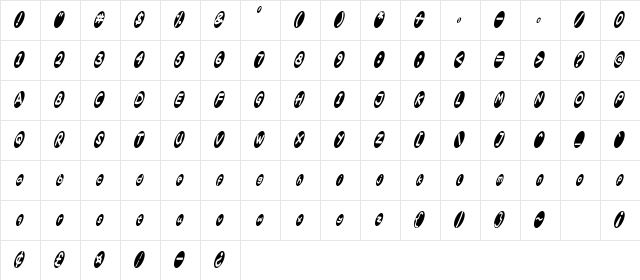
ovalium starmind Regular
Design Context for ovalium starmind Typeface
ovalium starmind is a composed and adaptable typeface that performs quietly and consistently across a wide range of design contexts.